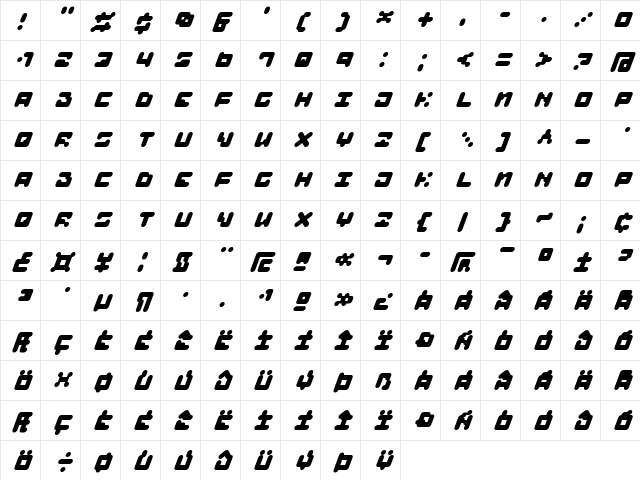
BAJT Rounded Italic
Design Context for BAJT Rounded Typeface
BAJT Rounded uses gentle rounded endings to create a warm, inviting typographic personality — less corporate than geometric sans, more refined than playful display fonts. The slanted form adds forward momentum and visual energy.
Well-suited to UI design, mobile interfaces, and any brand that wants approachability without sacrificing clarity.
Font Pairing: Pairs well with a rounded or humanist sans for body copy, maintaining the friendly tone without relying on BAJT Rounded to carry extended reading.
Pro Tip: Use BAJT Rounded for UI elements, app interfaces, and anywhere a friendly, approachable tone needs to be maintained without sacrificing clarity.